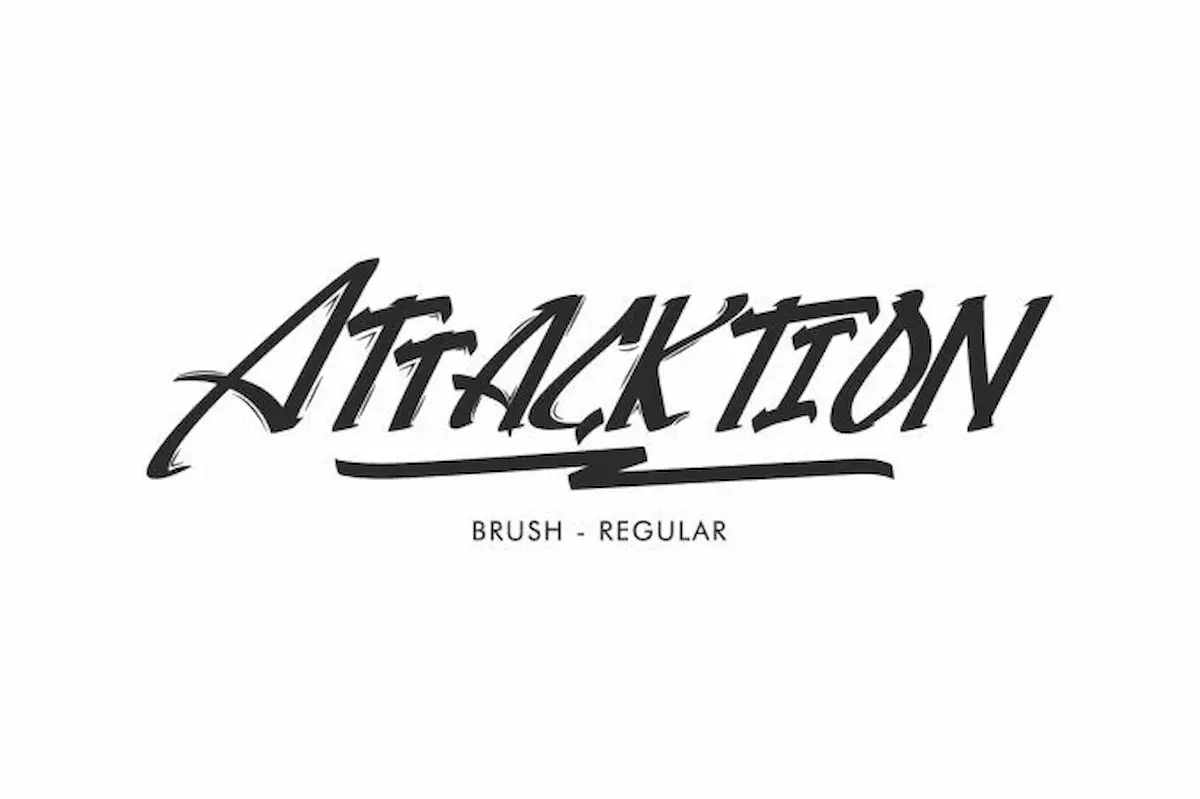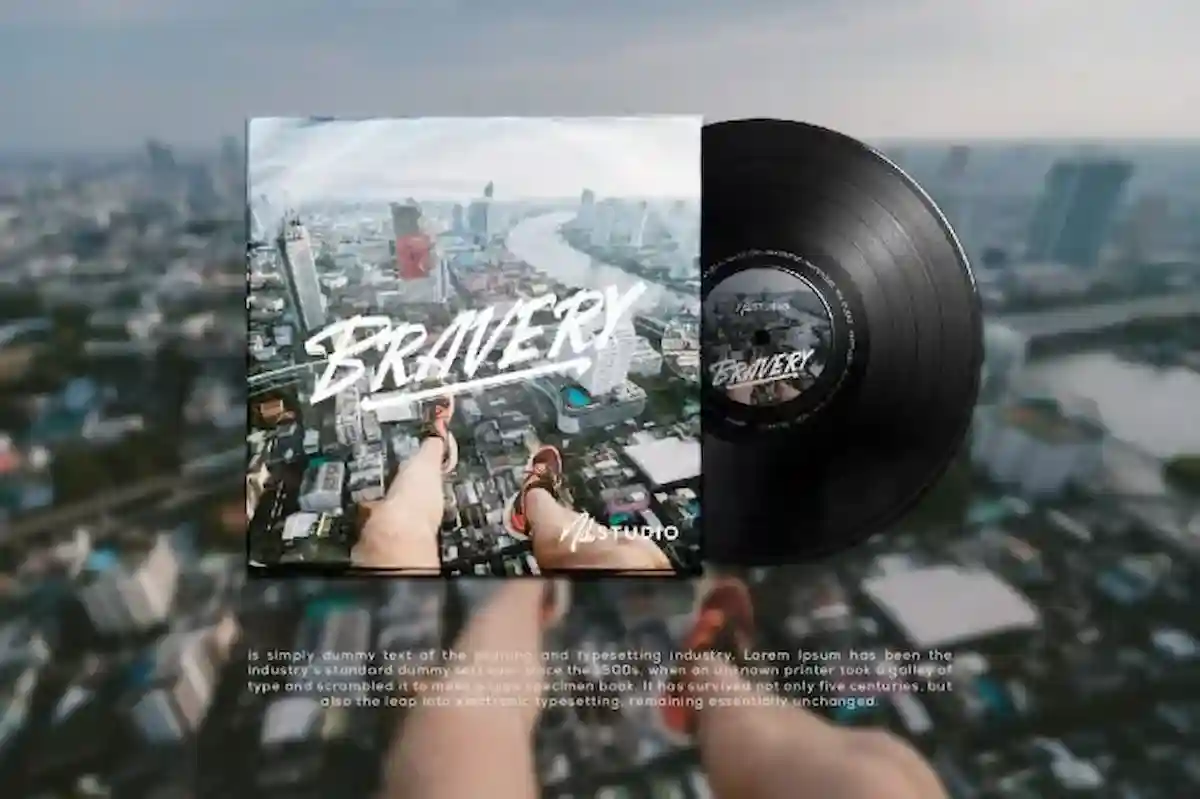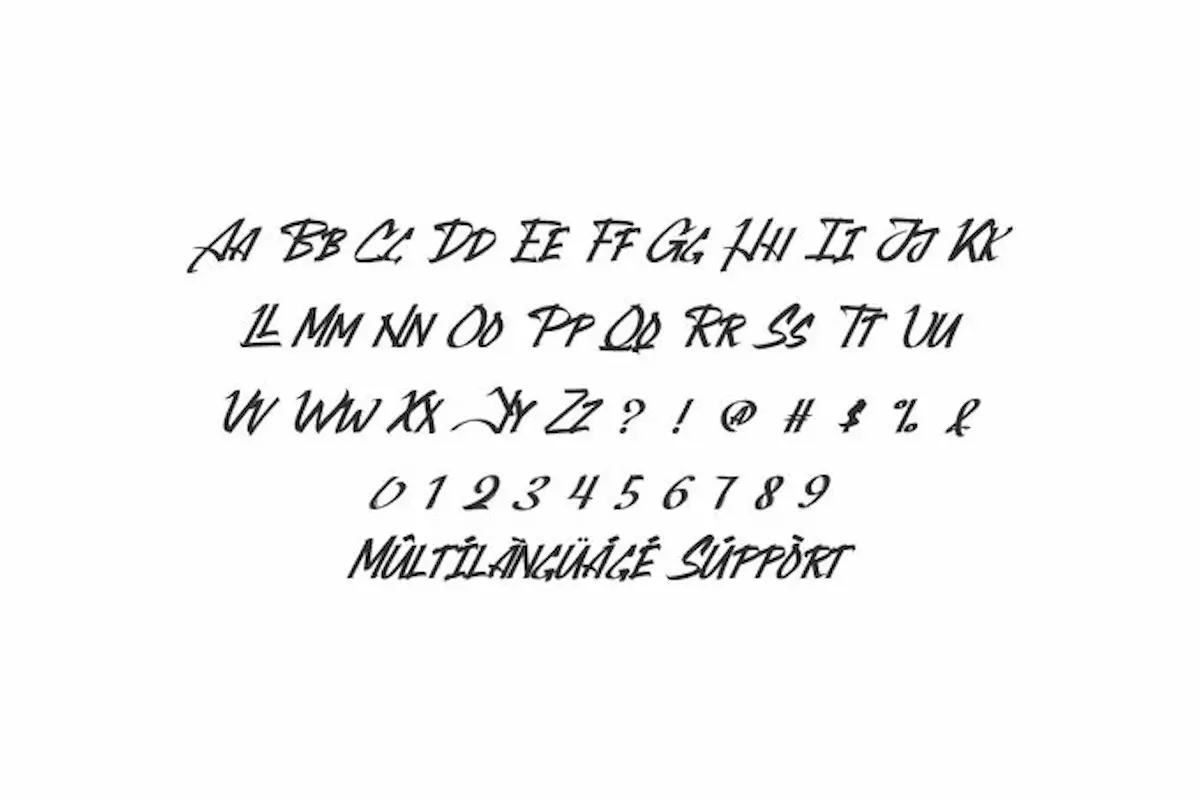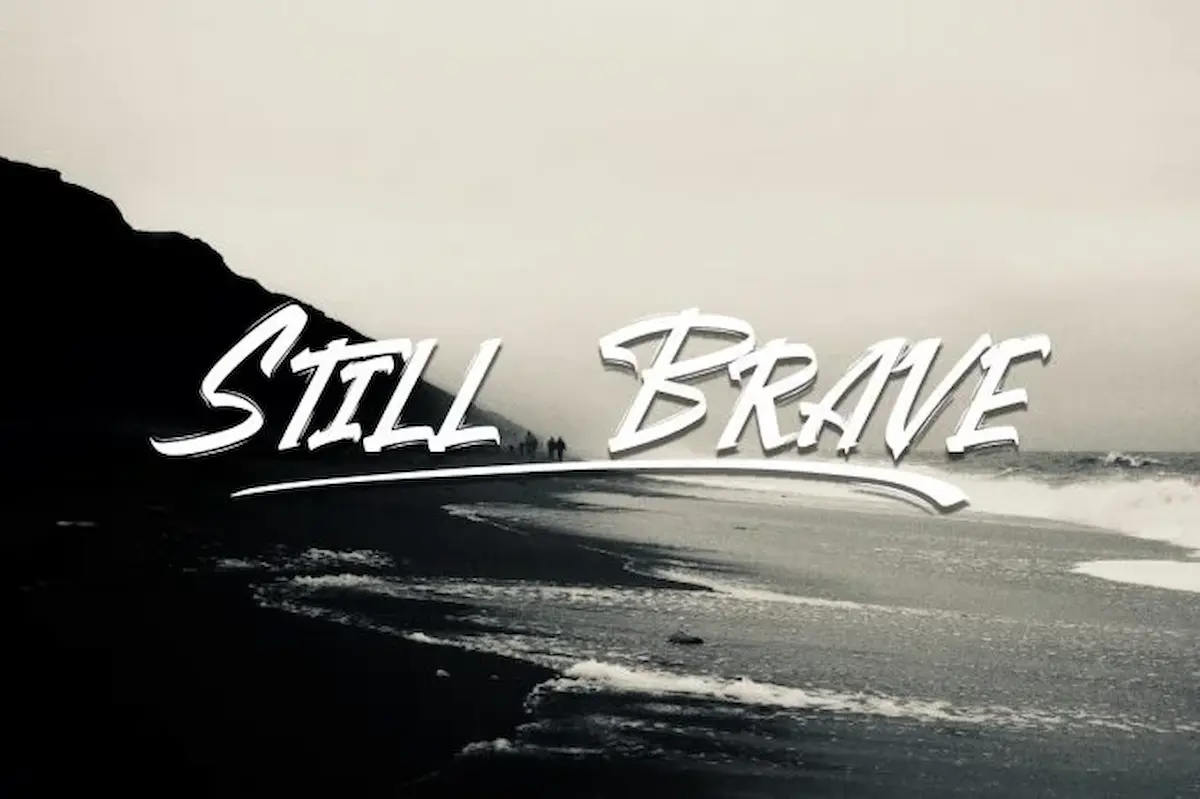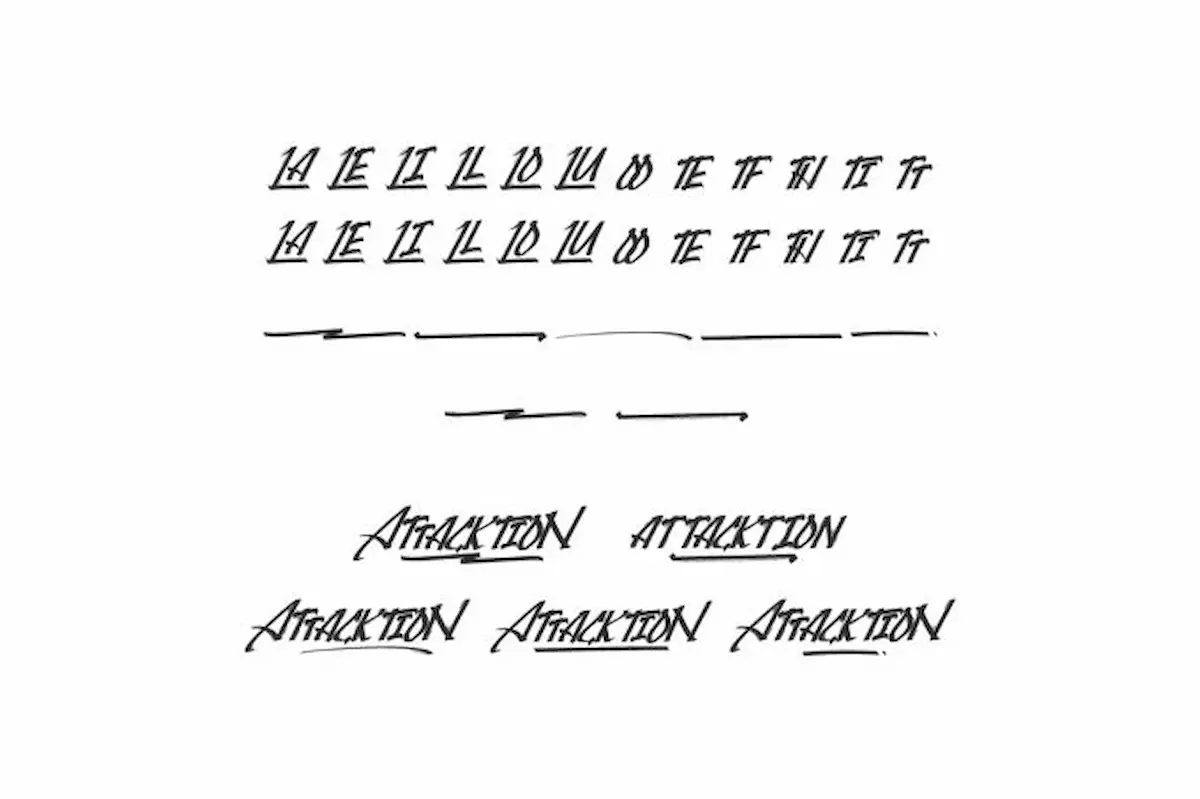
Attacktion Font is a handmade textured brush font by NihStudio since 2020. It is a unique script font, Made in Indonesia. Download Now
Attacktion is a brush font that has two styles : Reguler clean font and Textured brush font . Made in Garut and Bandung – Indonesia 2020 by Font Designer : Widi and Suci. On the package you will get :
Attacktion font will be great for any creative projects (require extended license) including : branding, logo, stationery, business card, signage, flyer, brochure etc. The theme style of the font is elegant, luxury, glamour, gold, vintage, stylish, sophisticated and classic brush style. The font will be match for this typeface: wedding, events, real estate, architect, law firm, florist, gardening, makeup artist, travel, hotel, musician etc